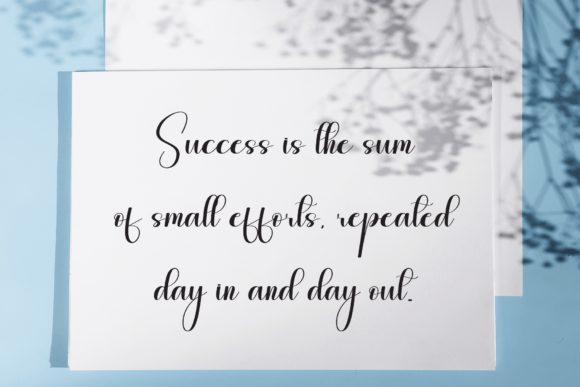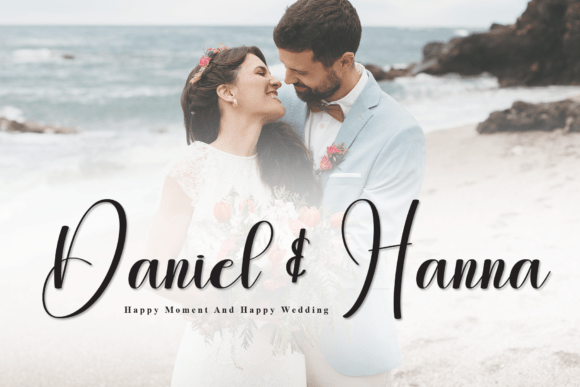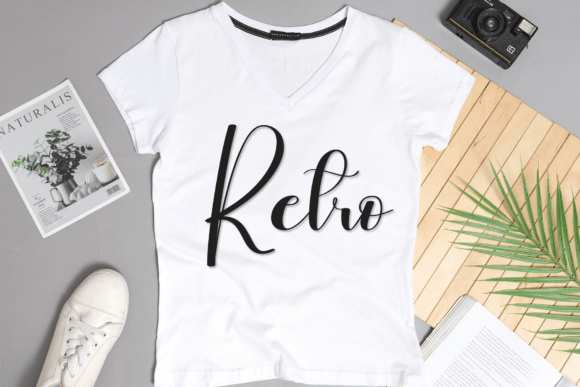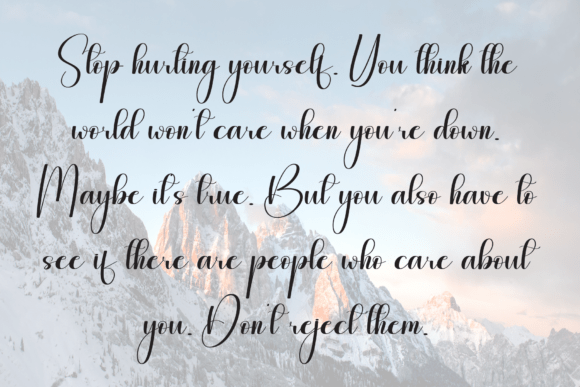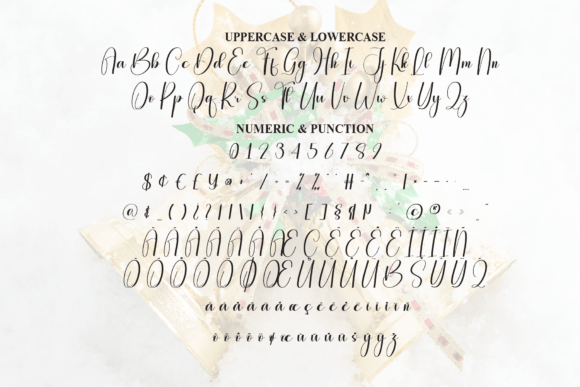
Christmas Jingle Font: The Ultimate Addition to Your Festive Designs
Are you looking for a font that can add a touch of sweetness and enjoyment to your designs? Look no further than the Christmas Jingle Font! This endearing and amiable handwritten font is the perfect element to make your designs stand out, especially during the holiday season. With its enchanting and playful character, this font is sure to bring a dash of whimsy to your wedding invitations, cards, and other projects.
The Perfect Font for Festive Designs
Crafted with care, the Christmas Jingle Font is designed to make every letter feel like a cheerful handwritten note. Its unique and playful character makes it an ideal choice for designers and crafters who want to add a personal touch to their projects. Whether you’re creating wedding invitations, holiday cards, or festive posters, this font is sure to make your designs shine.
What Makes Christmas Jingle Font So Special?
So, what sets the Christmas Jingle Font apart from other fonts? Here are a few features that make it a standout:
- Handwritten charm: The Christmas Jingle Font is a handwritten font that exudes warmth and personality. Its imperfections and quirks make it feel like a handwritten note, adding a touch of authenticity to your designs.
- Playful character: This font has a playful character that’s perfect for festive designs. Its bouncy and energetic feel makes it ideal for holiday projects, wedding invitations, and other celebrations.
- Versatile: The Christmas Jingle Font is versatile and can be used for a variety of projects, from digital designs to print materials.
- Easy to read: Despite its playful character, the Christmas Jingle Font is easy to read, making it perfect for body text and headings.
How to Use Christmas Jingle Font in Your Designs
Using the Christmas Jingle Font in your designs is easy! Here are a few tips to get you started:
- Pair it with other fonts: The Christmas Jingle Font pairs well with other fonts, especially serif fonts. Try pairing it with a serif font for a classic and elegant look.
- Use it for headings and titles: The Christmas Jingle Font is perfect for headings and titles. Use it to add a touch of whimsy to your designs.
- Add it to your digital designs: The Christmas Jingle Font is perfect for digital designs, including social media graphics, blog posts, and email newsletters.
- Use it for print materials: This font is also great for print materials, including wedding invitations, holiday cards, and posters.
If you’re a designer or crafter, here are a few tips to help you get the most out of the Christmas Jingle Font:
- Experiment with different colors: The Christmas Jingle Font looks great in a variety of colors. Experiment with different colors to find the one that works best for your design.
- Play with font sizes: This font looks great in a variety of font sizes. Play with different font sizes to add visual interest to your design.
- Add graphics and illustrations: The Christmas Jingle Font pairs well with graphics and illustrations. Add some festive graphics and illustrations to make your design pop.